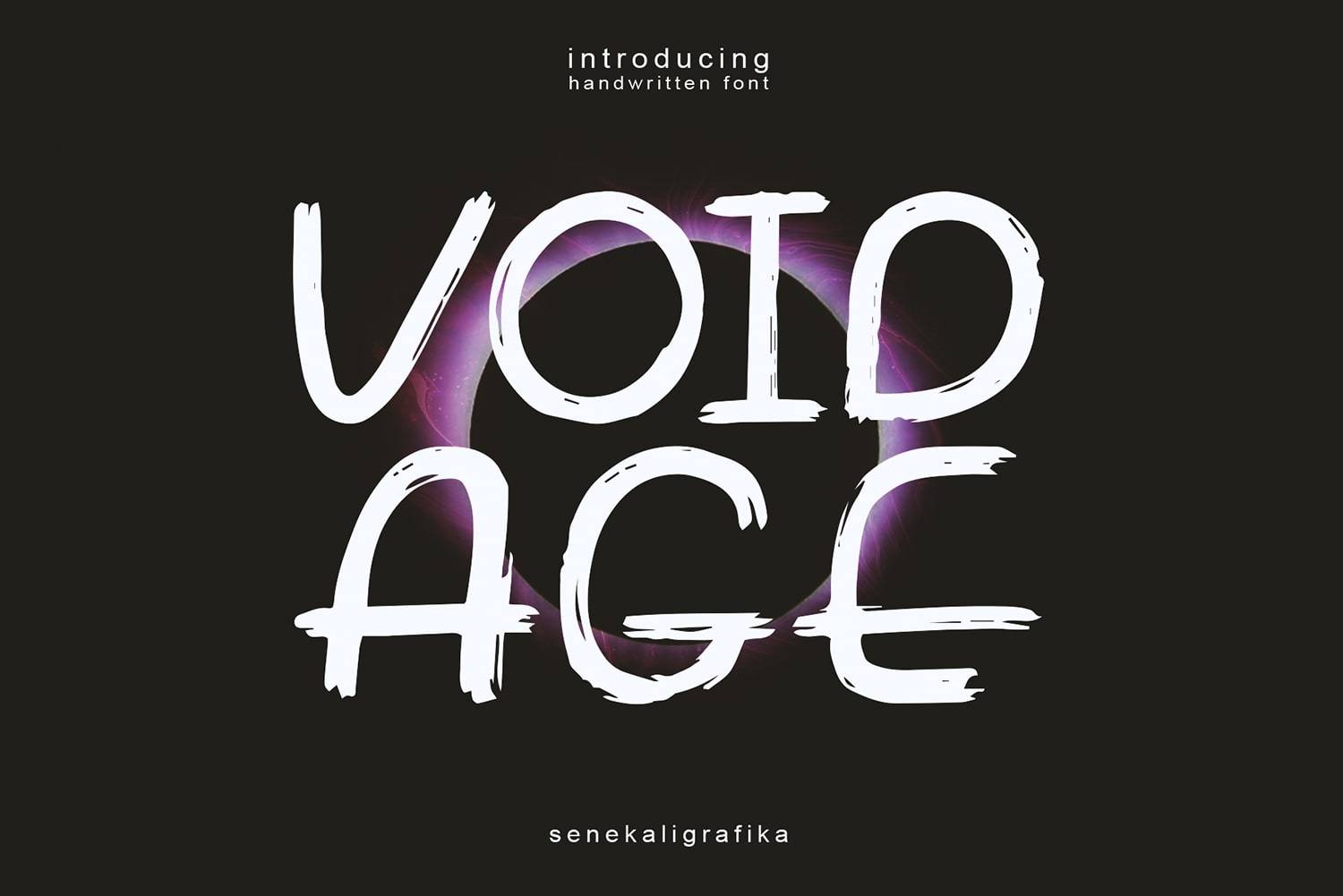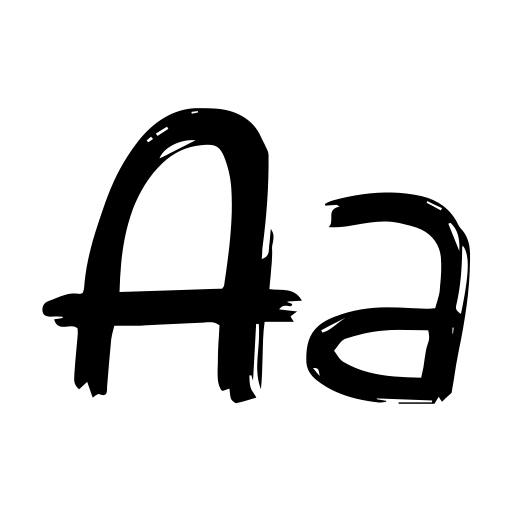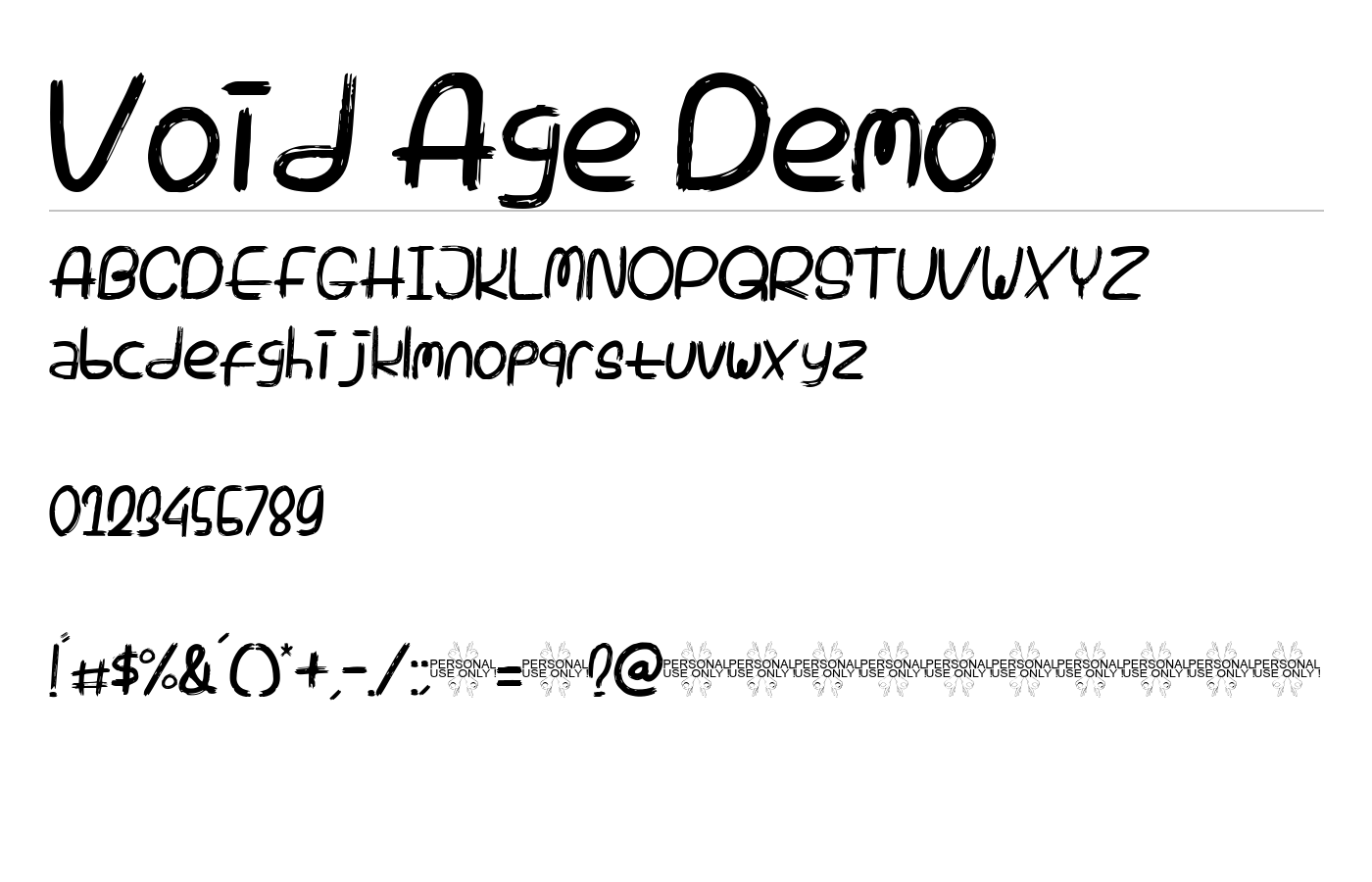
Void Age is a quirky, hand-drawn sans serif font with an uneven, brush-like texture that gives it a playful and informal vibe. Its irregular strokes and quirky character shapes make it ideal for creative projects, adding a touch of uniqueness and personality to posters, casual branding, or editorial headlines where a fun and artistic feel is desired.
Void Age Font
About Void Age Font